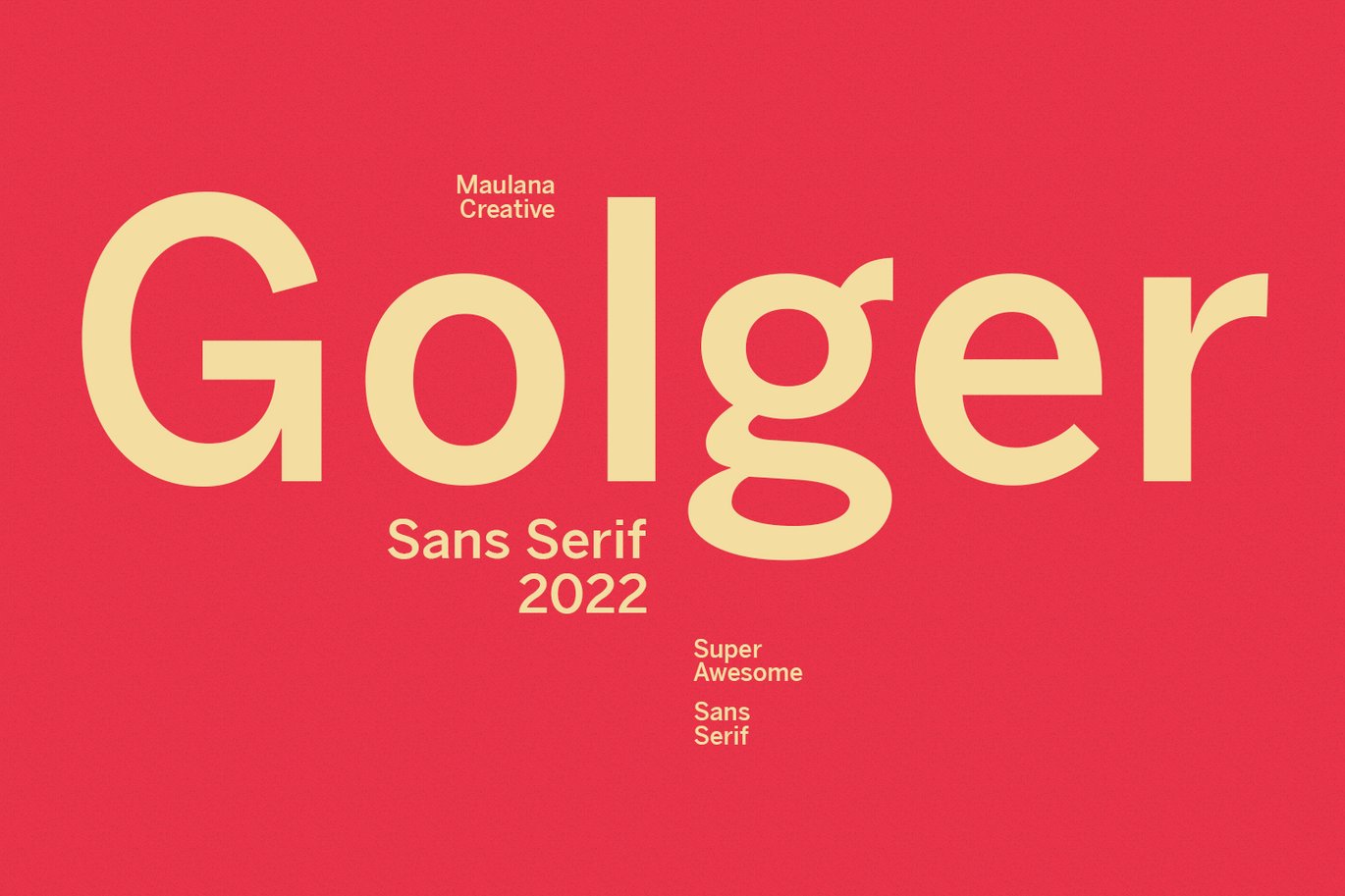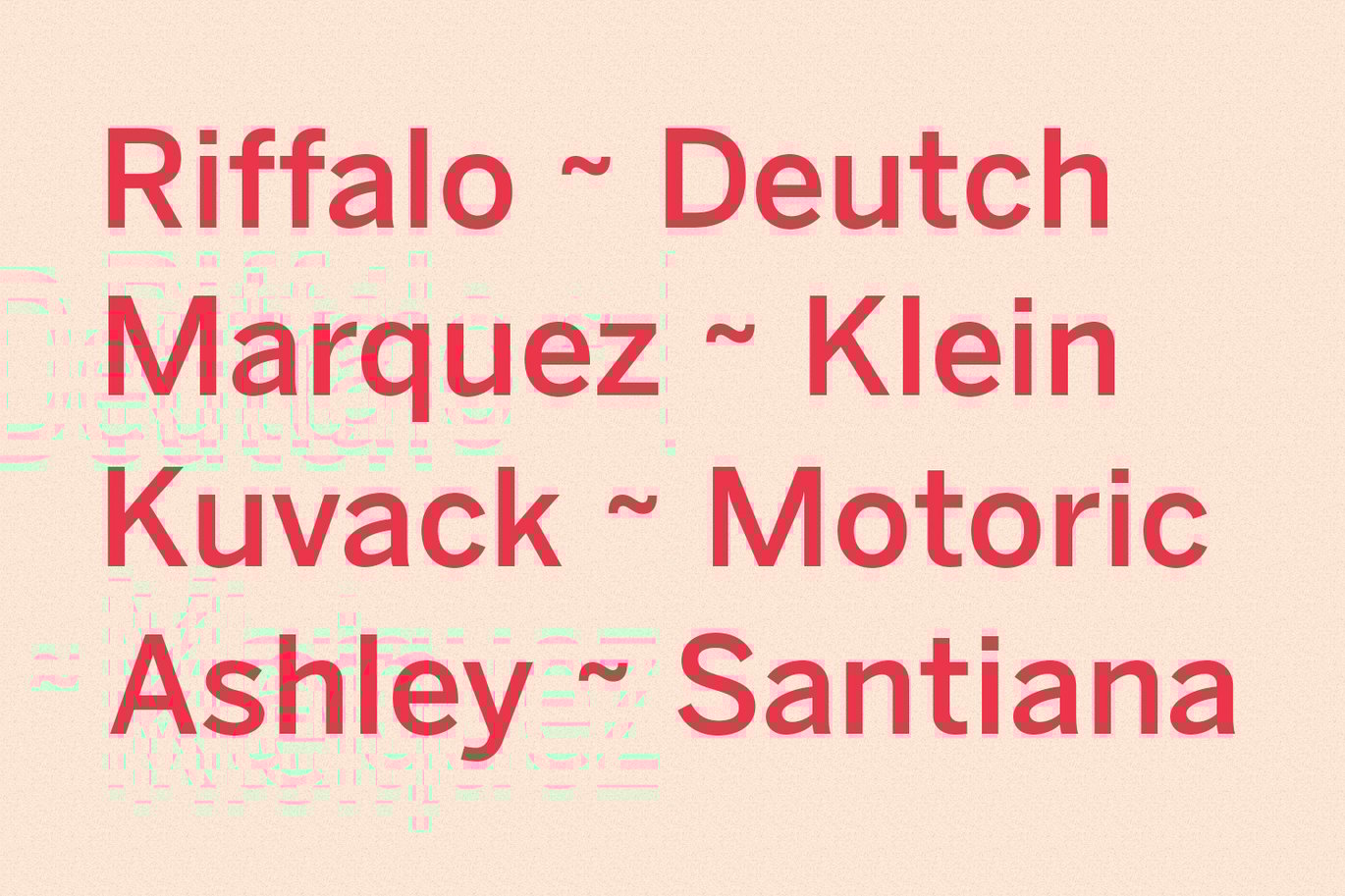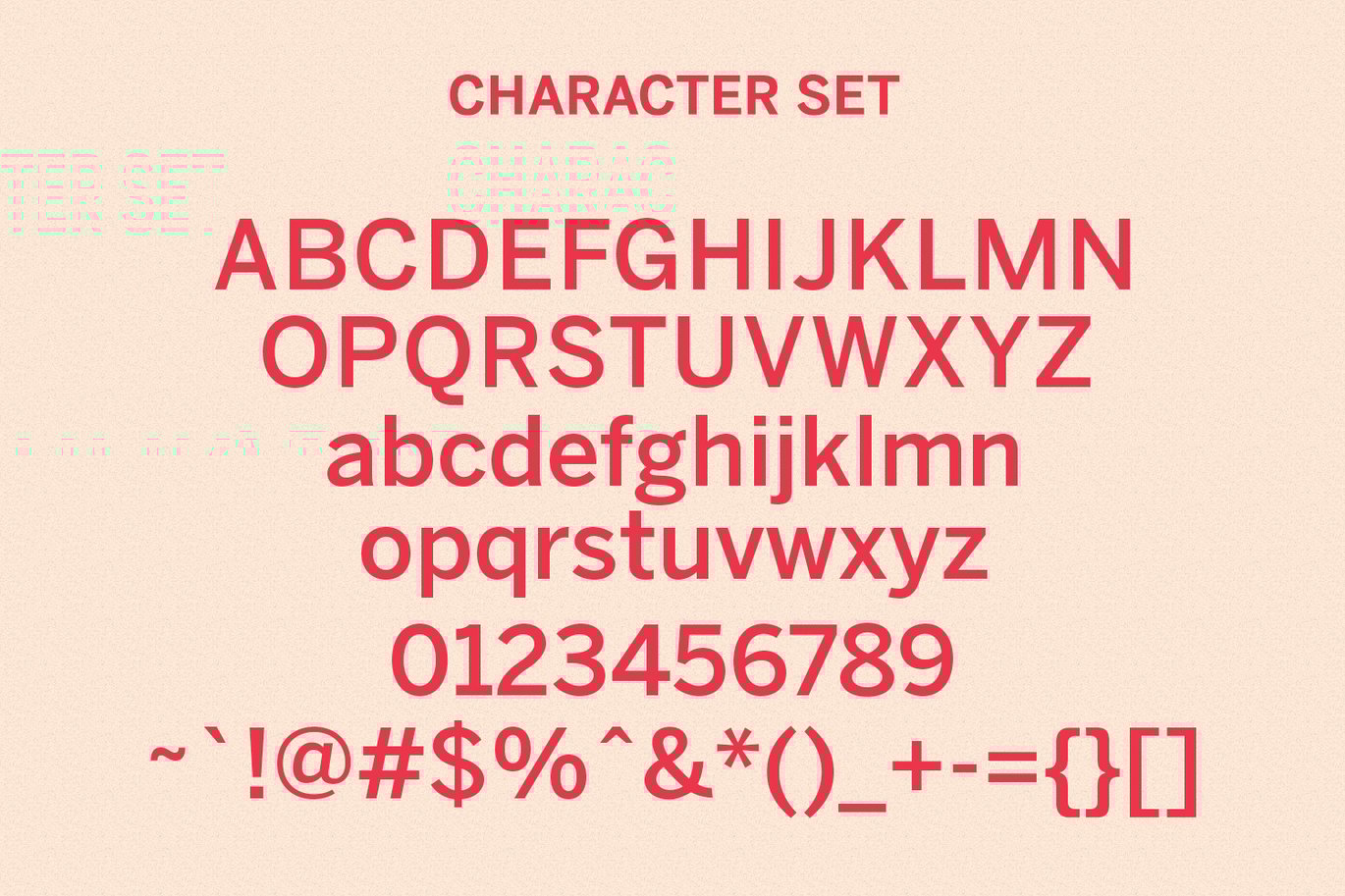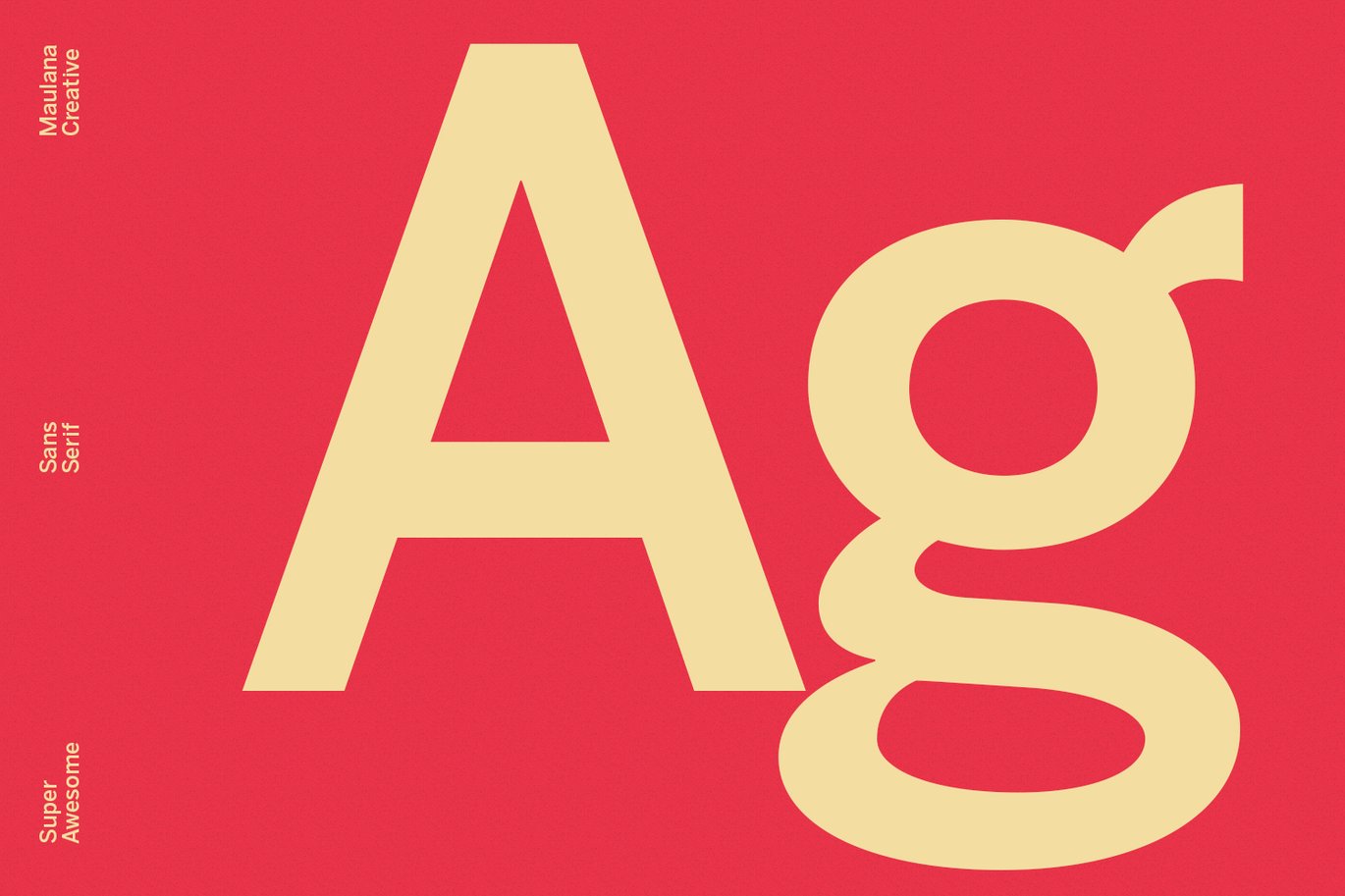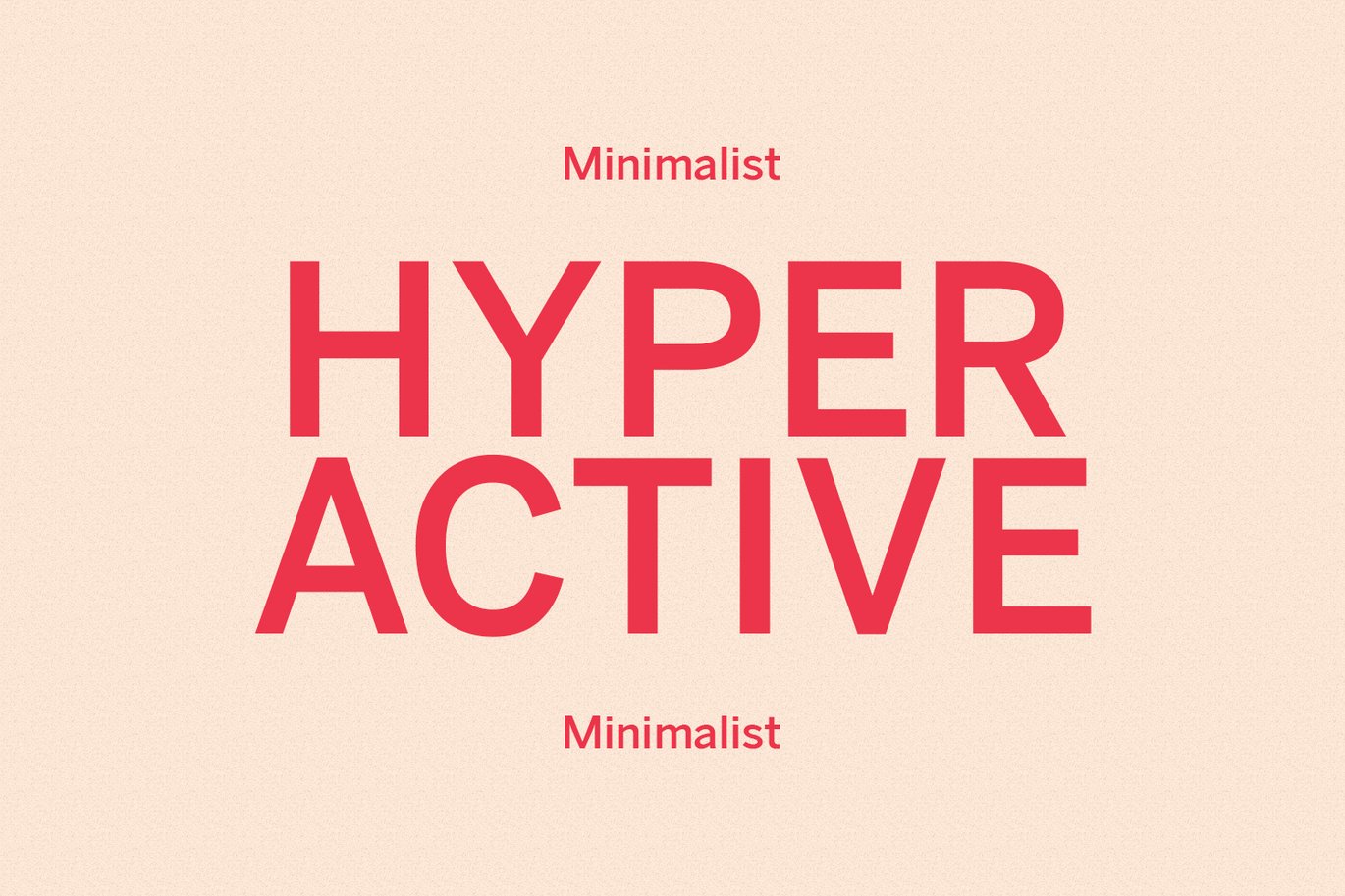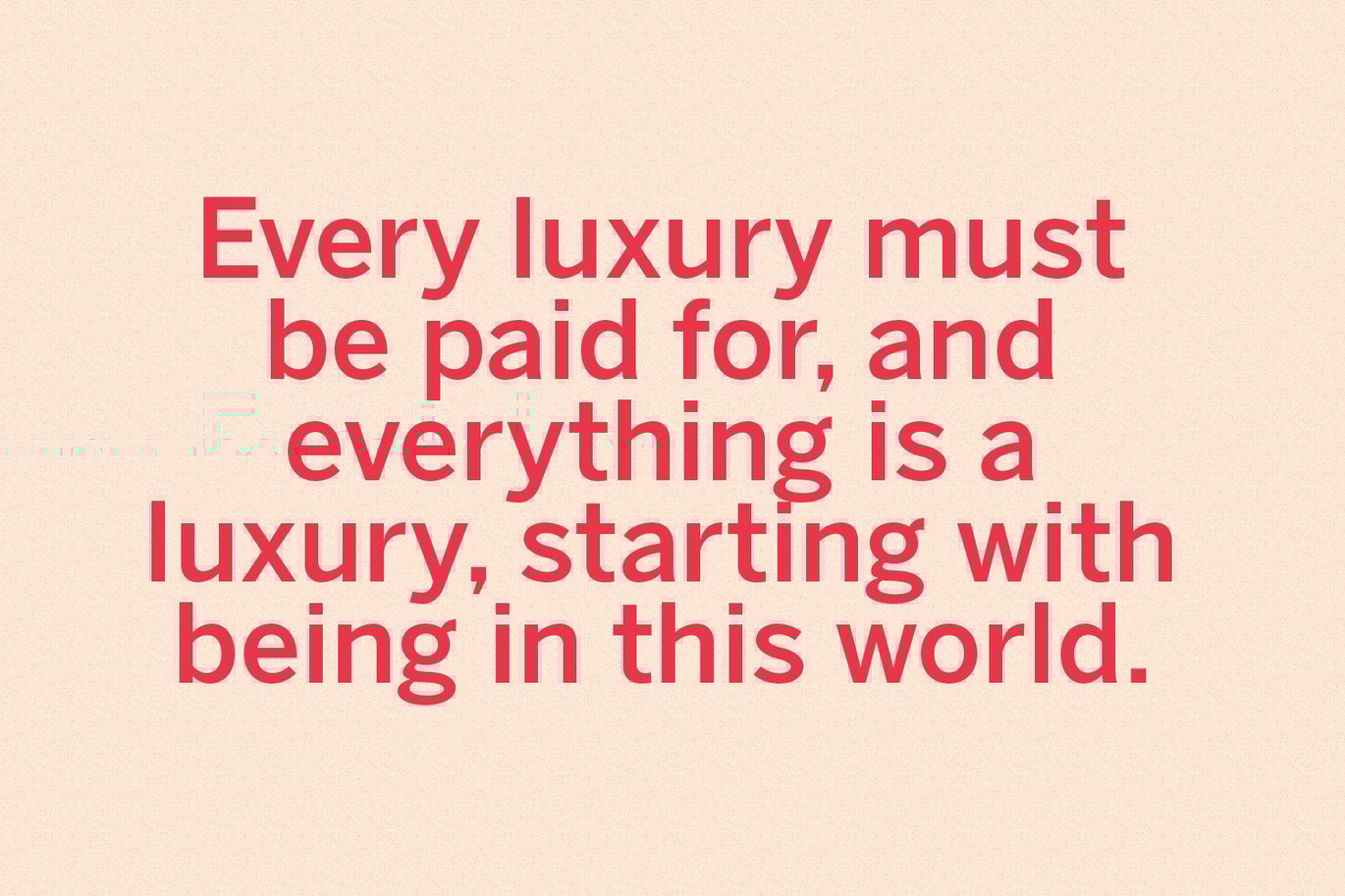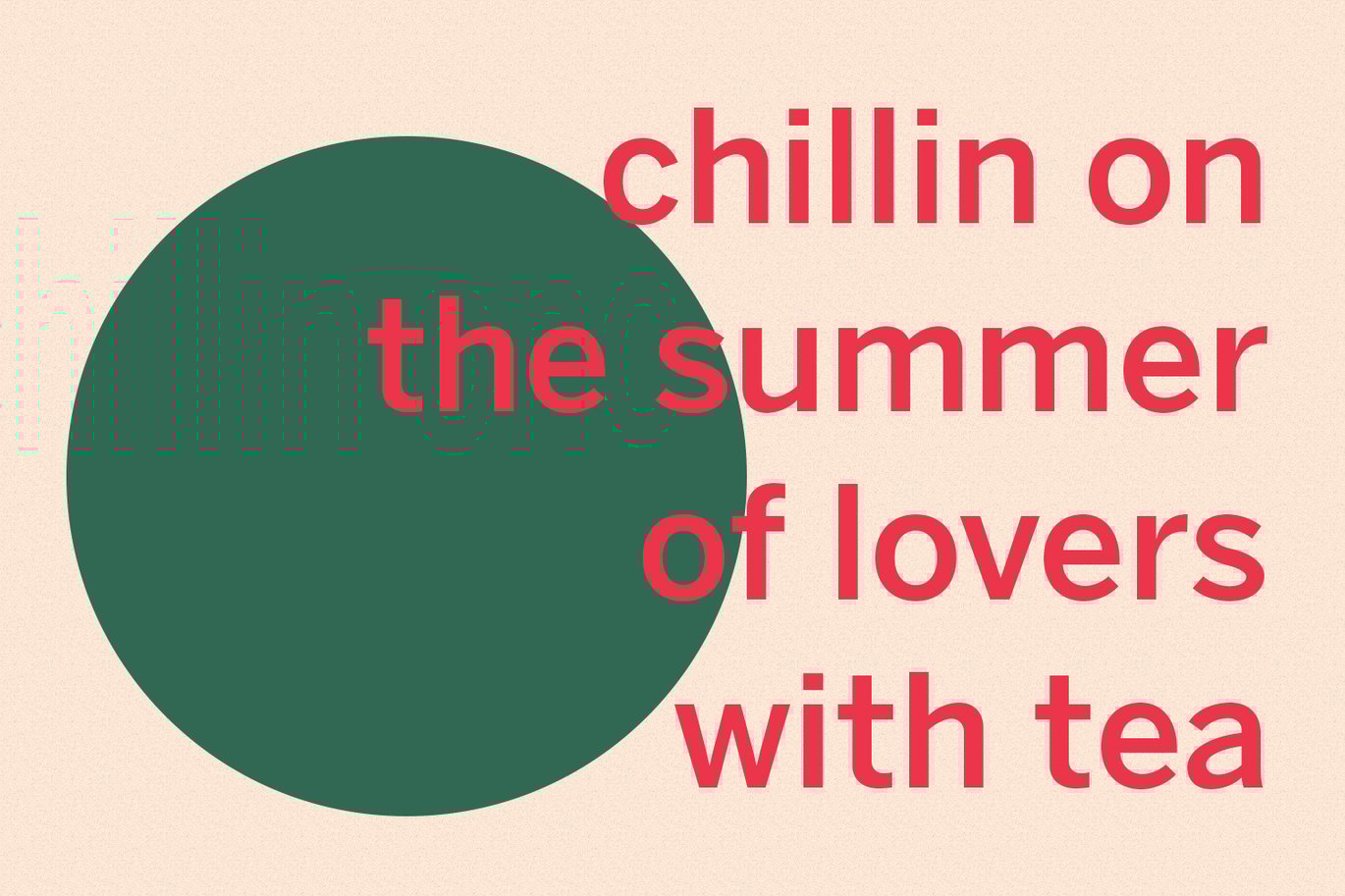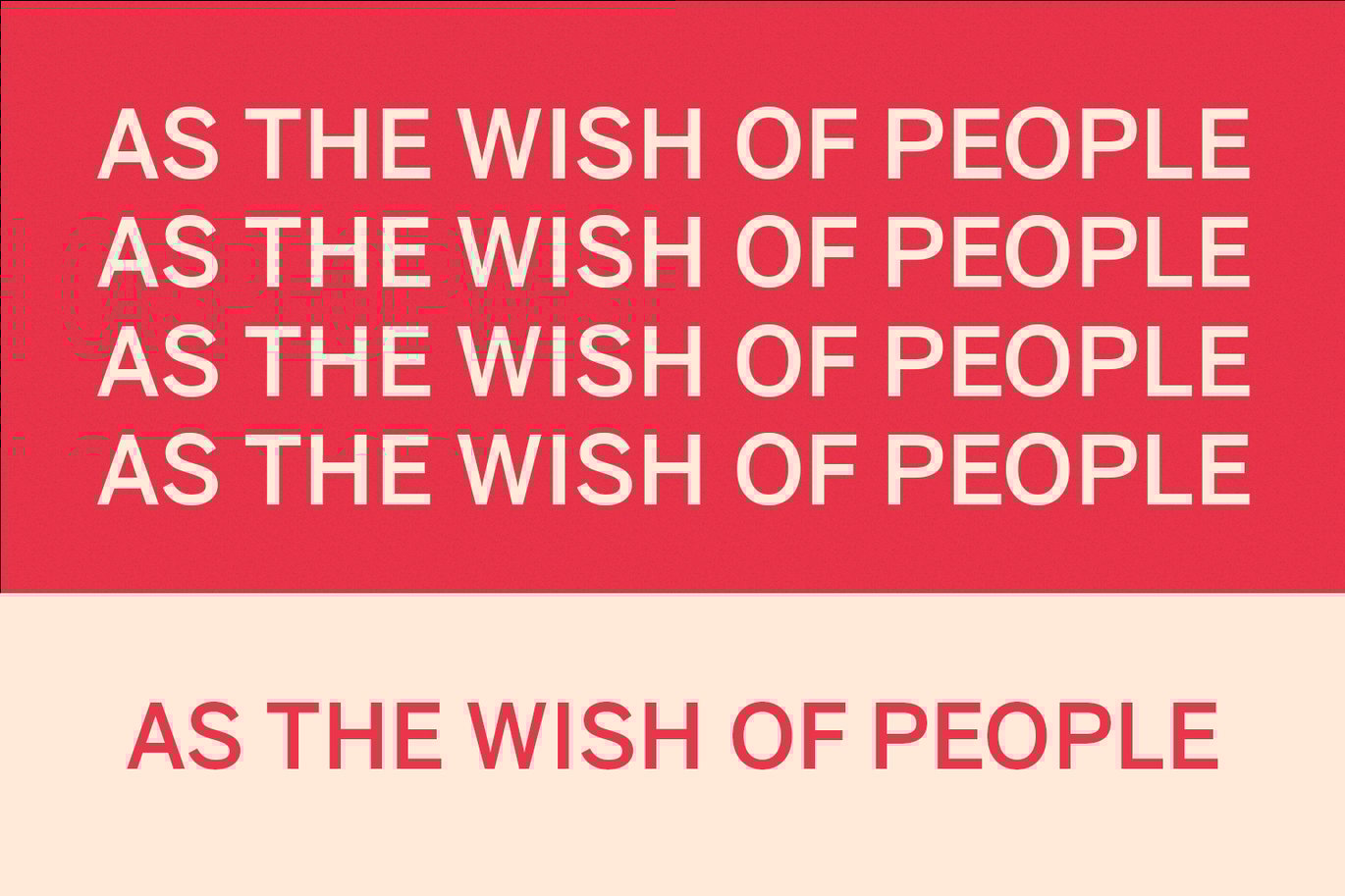
Golger Sans Serif Font
Golger Sans is a Classic Contemporary Sans serif. With bold weight stroke and fun character with a bit of ligatures. To give you an extra creative work. Golger Sans font support multilingual more than 100+ language. This font is good for logo design, Social media, Movie Titles, Books Titles, a short text even a long text letter and good for your secondary text font with script. Make a stunning work with Golger Sans font.